Stratum in use: <em>Under The Influence</em> magazine
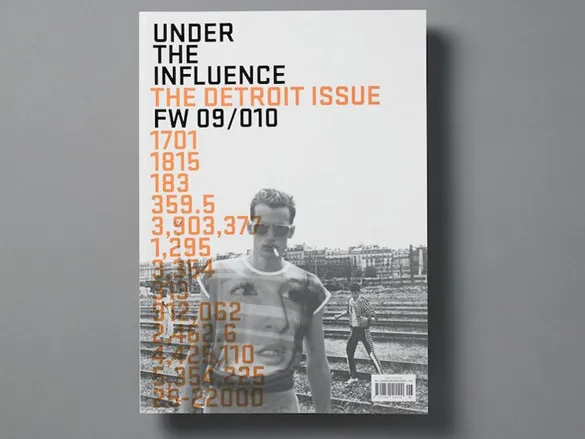
Designed by Xavier Encinas, Under the Influence is an art fashion magazine that gathers work from photographers, stylists, artists and writers around a single theme per issue.
The theme for issue six is “Detroit” and Encinas chose Stratum 1 as the primary display typeface. Stratum is used extensively throughout the magazine in everything from a single page filled with one letter to cleanly executed full spreads of infographics.
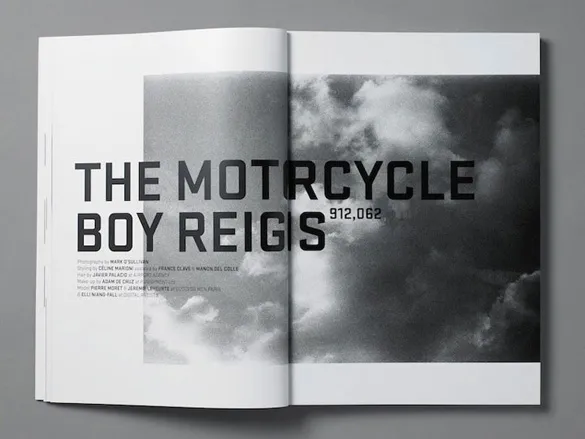
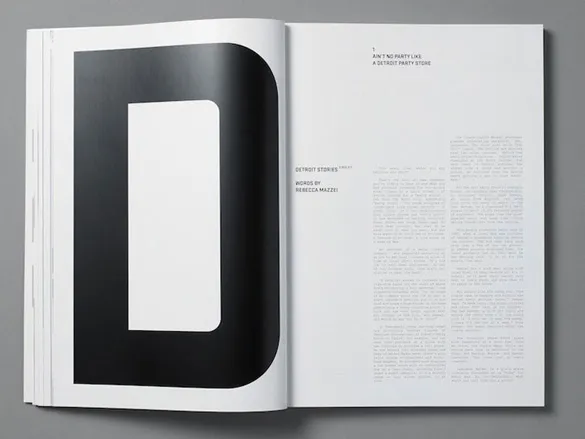
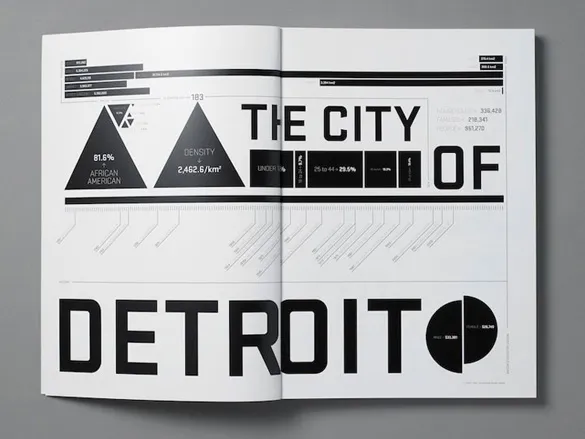
Stratum’s potentially rigid geometry is balanced by Encinas’ elegant typographic treatment creating a vision of Detroit that is layered and denies elevating any stereotypes associated with the city. Find more Under the Influence spreads using Stratum 1 (along with other issues of the magazine designed by Encinas) by visiting his studio’s website.